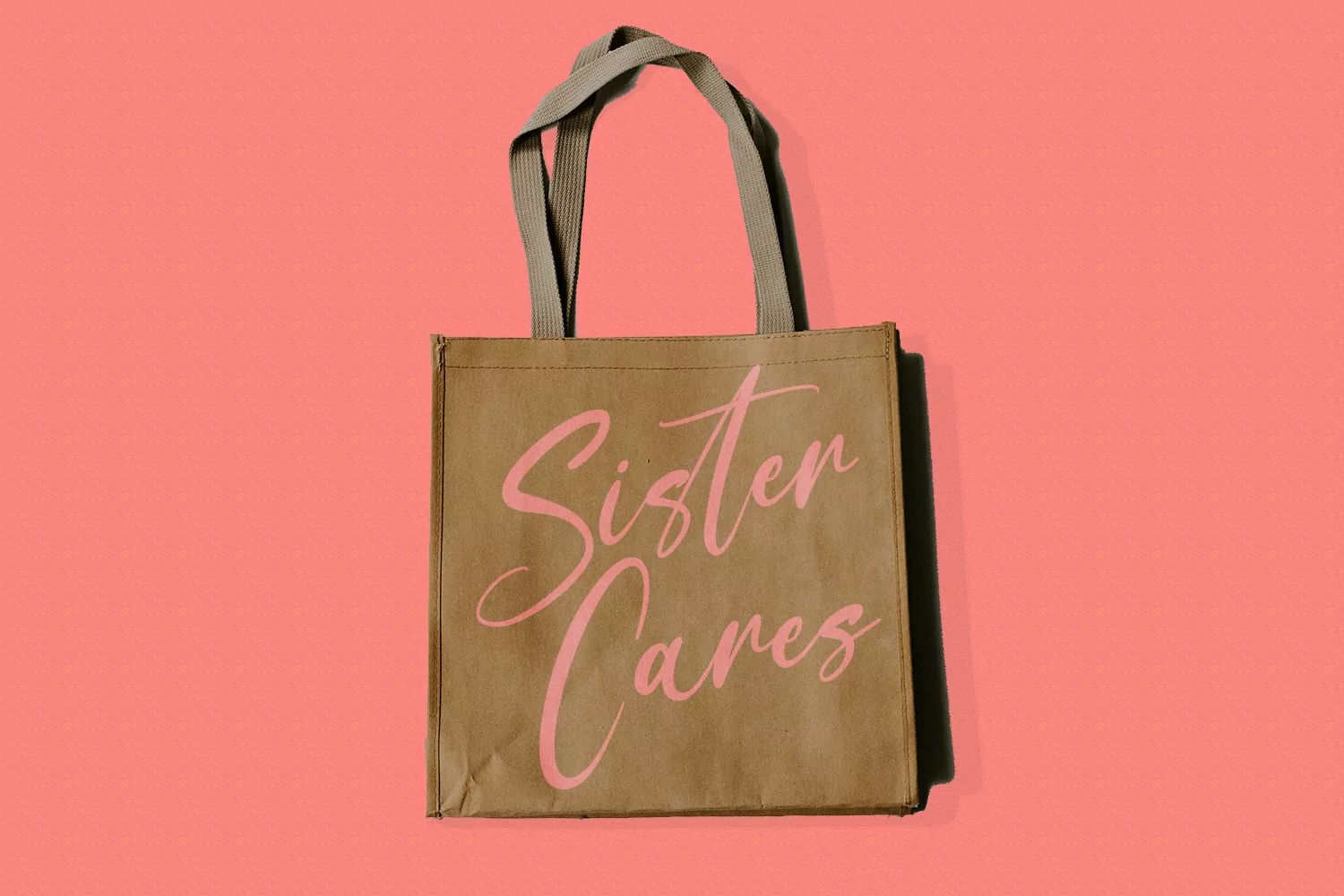
Yourstrully is casual script font, with clean contrast stroke, super slanted and fun character. It has Opentype features ligatures of character, To give you an extra creative work. Yourstrully font support multilingual more than 100+ language. This font is good for logo design, Social media, Movie Titles, Books Titles, a short text even a long text letter and good for your secondary text font with sans or serif. Make a stunning work with Yourstrully font.
Yourstrully